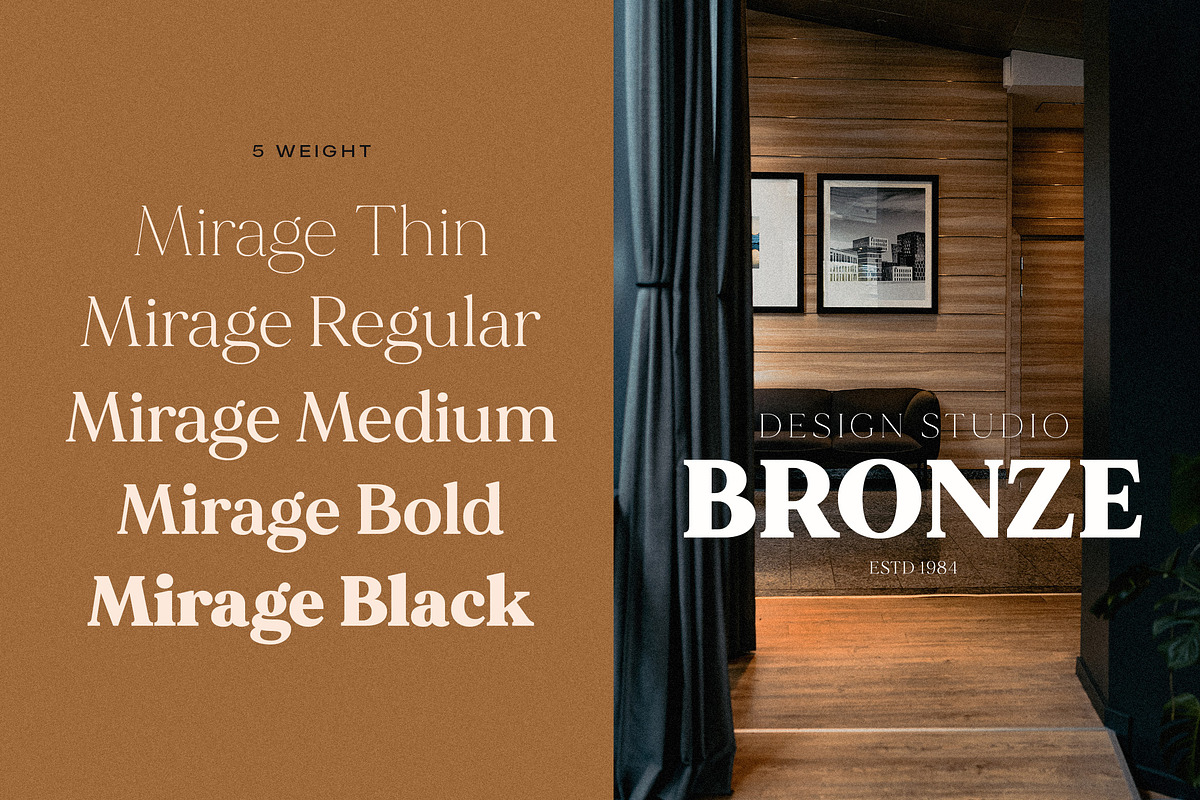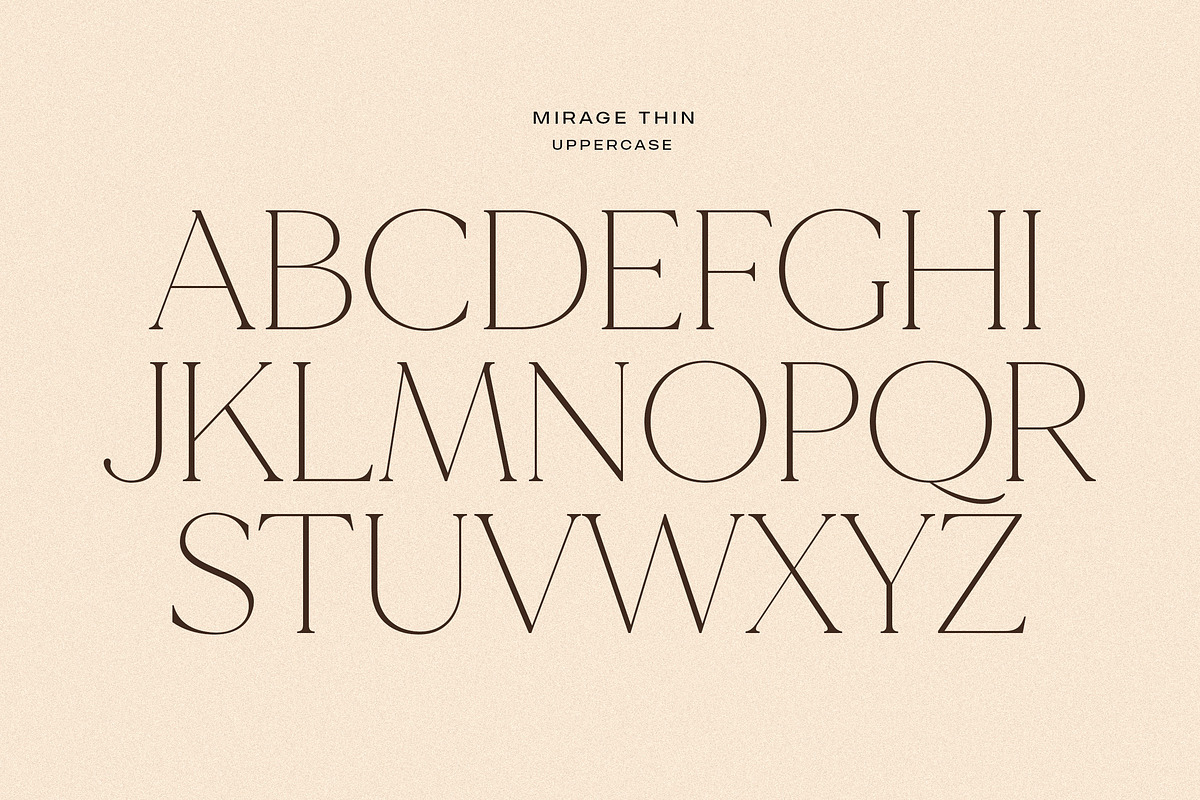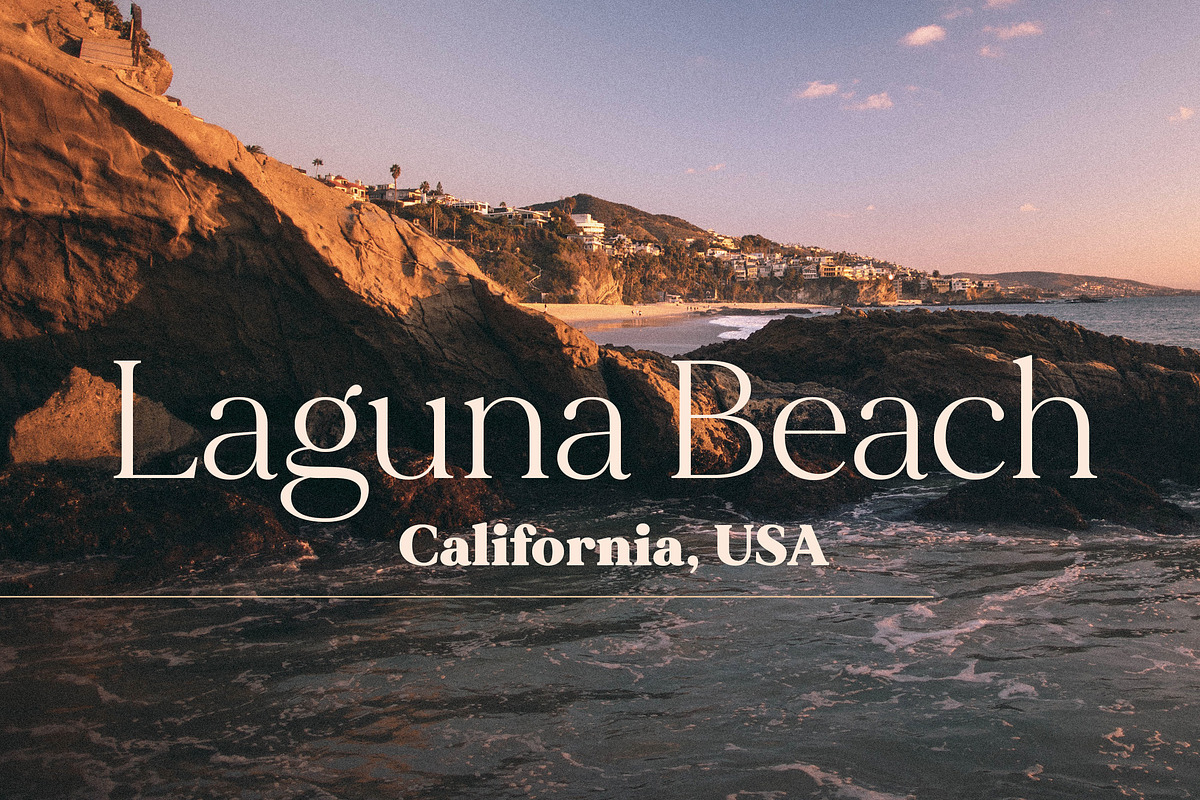
Made Mirage Font
Made Mirage is a modern elegant serif font family. It will be perfect for many projects: fashion, magazines, logos, branding, photography, invitations, wedding invitations, quotes, blog headers, posters, advertisements, postcards, books, websites, etc.